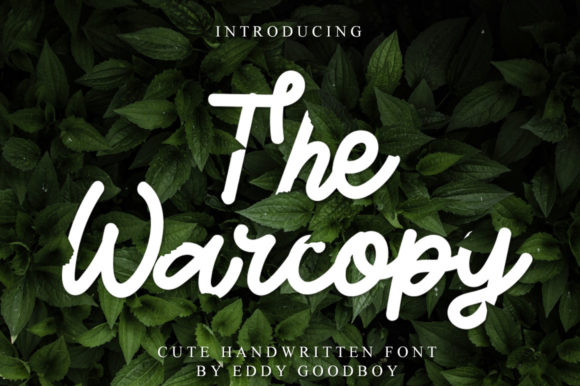
Embark on a Typographic Voyage with The Warcopy Font: A Script Font Steered by Timeless Elegance
Step into the world of The Warcopy Font, a breathtaking script font that exudes the allure of yesteryears. Inspired by the grace of calligraphy, this font possesses an inherent charm that will elevate your creative endeavors to new heights.
Crafted with meticulous care by the visionary Eddygoodboy, The Warcopy Font boasts an array of captivating features that will leave you spellbound. Its elegant curves and fluid strokes evoke a sense of nostalgia, while its impeccable balance of thick and thin lines ensures readability.
Whether you're a seasoned designer or just starting your creative journey, The Warcopy Font is the perfect companion for a diverse range of projects. Its versatility and adaptability make it a must-have for any font collection.
Add a Touch of Sophistication to Your Designs:
Unleash the timeless allure of The Warcopy Font to add a touch of sophistication to your designs. Its vintage charm will lend an air of elegance to wedding invitations, branding materials, and social media graphics.
Harness the Power of Expression:
With The Warcopy Font at your fingertips, express yourself like never before. Its graceful script style is ideal for creating heartfelt letters, heartfelt poems, and captivating quotes that resonate with your audience.
Craft Unforgettable Logos and Branding:
Elevate your brand identity with The Warcopy Font. Its distinctive character and timeless appeal will make your logo stand out from the crowd. Let your brand speak volumes through the beauty of this font.
Design Enchanting Marketing Materials:
Capture the attention of your customers with marketing materials that radiate charm and sophistication. The Warcopy Font will add a touch of magic to your brochures, flyers, and product packaging.
Whether you're a seasoned designer or just exploring the world of typography, The Warcopy Font is the perfect choice for projects that demand a touch of class and sophistication. Its versatility and timeless appeal make it an invaluable asset for any creative toolbox.
So, dive into the world of The Warcopy Font today and unlock a world of creative possibilities. Let your imagination soar as you craft designs that leave a lasting impression.